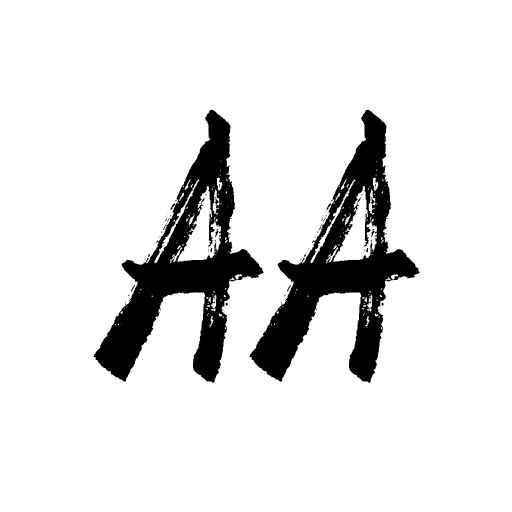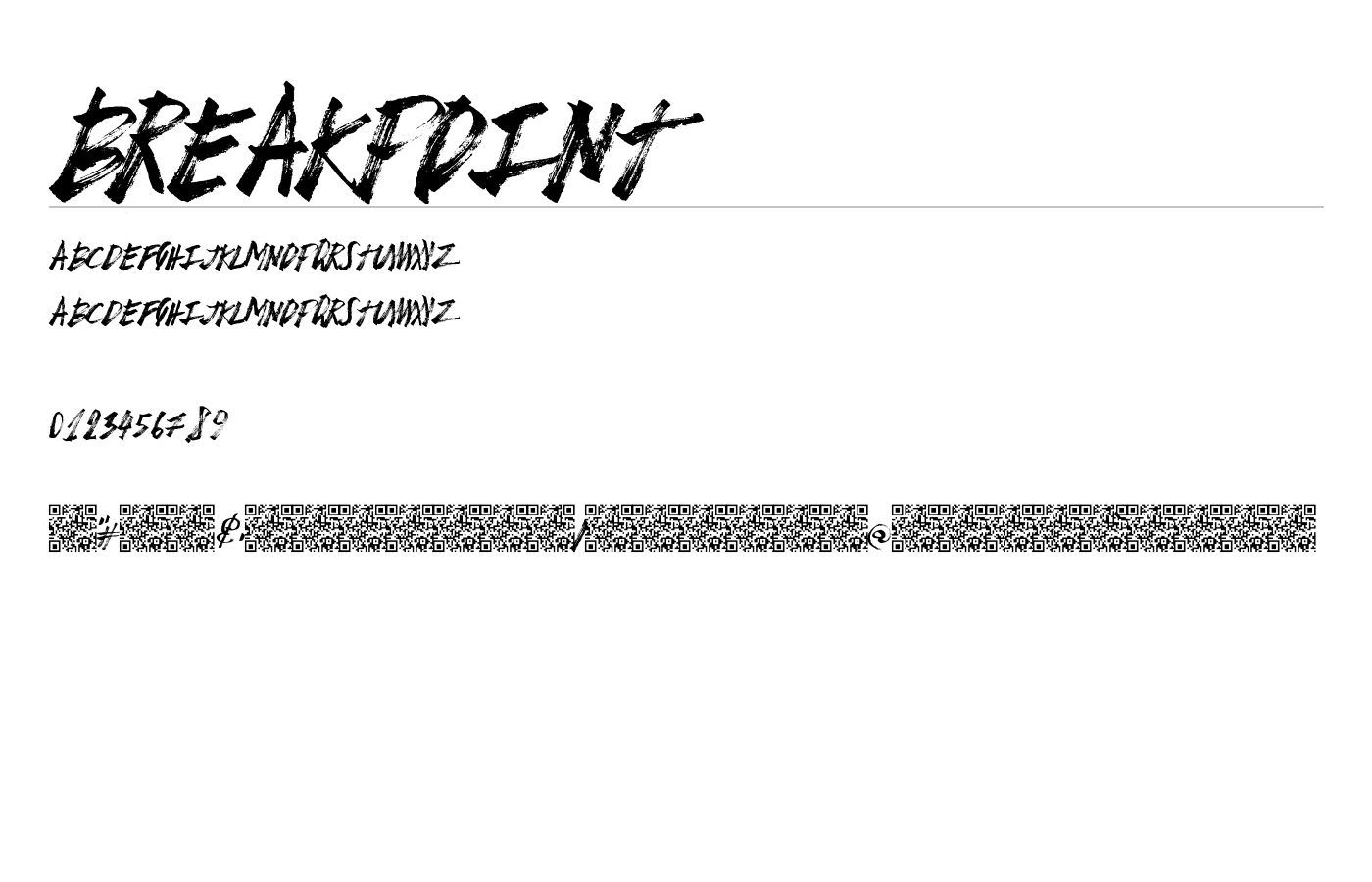
BreakPoint is a bold, expressive brush script font that features dynamic, textured strokes with a rough, hand-painted feel. Its energetic, slightly condensed letterforms with high contrast and sharp edges lend it a rebellious and artistic personality, making it perfect for edgy branding, posters, and creative projects seeking a strong, informal voice. This font's unique, crafted style works best in headlines or display use where it can create impactful visual statements.
BreakPoint Font
About BreakPoint Font